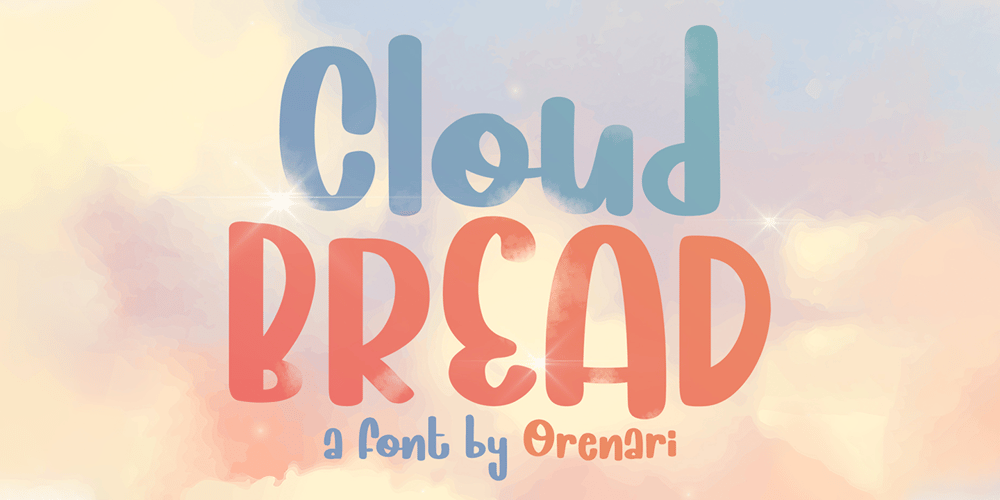
Cloud Bread Font Family was designed by Lia Wijayanti and published by Orenari. Cloud Bread contains 1 styles and family package options. Cloud Bread is a sweet and friendly display font. This font has bold and cute shape. It’s unique style makes it incredibly fitting to a large pool of designs. Be inspired by Cloud Bread and create something fun and memorable!Language Support:Afrikaans, Albanian, Catalan, Danish, Dutch, English, French, German, Icelandic, Italian, Norwegian, Portugese, Spanisch, Swedish, ZuluI really hope your projects will be cool with this font, and please don’t hesitate to drop me a message if you have any questions or you wanna share some jokes! 🙂